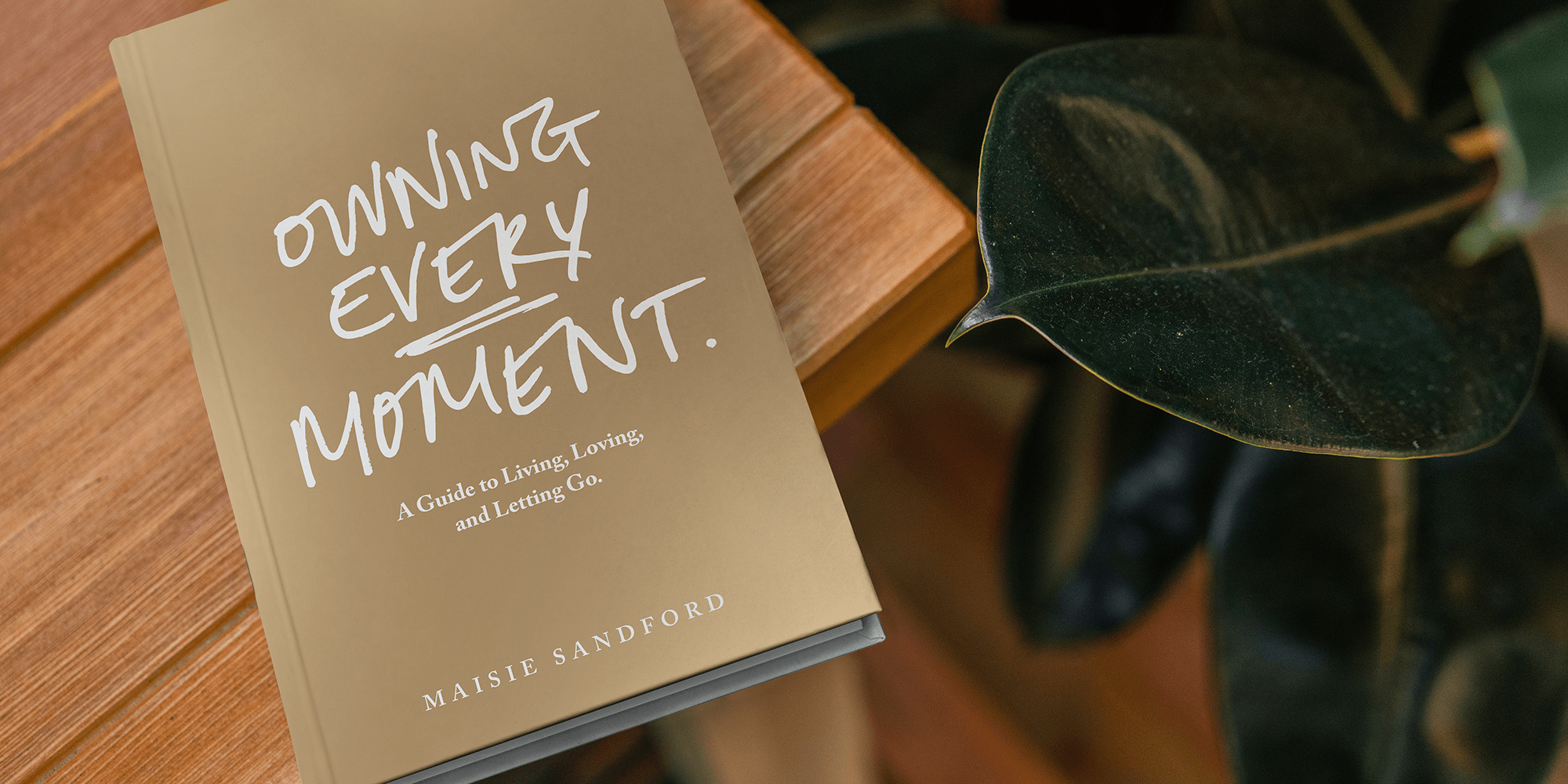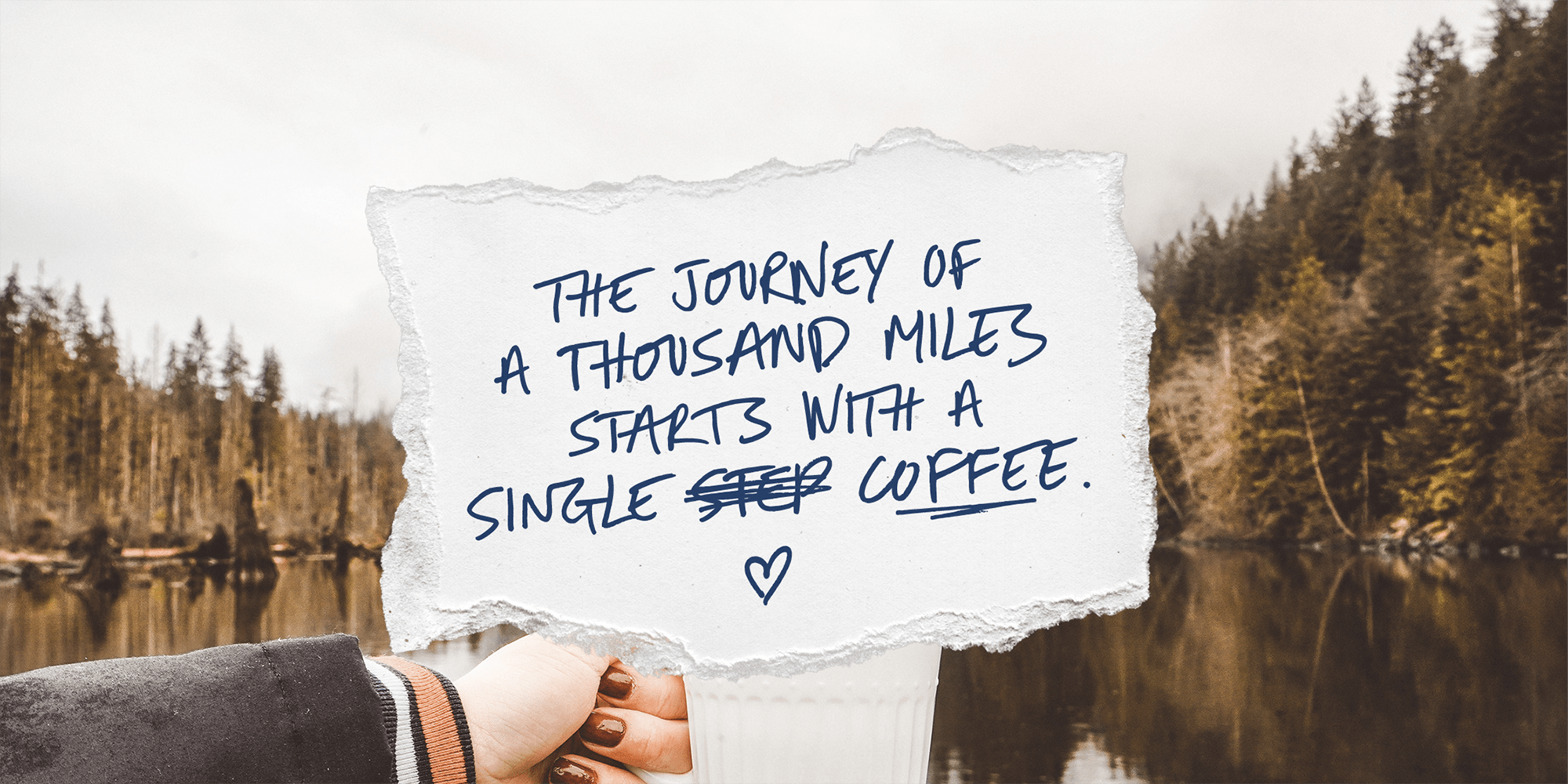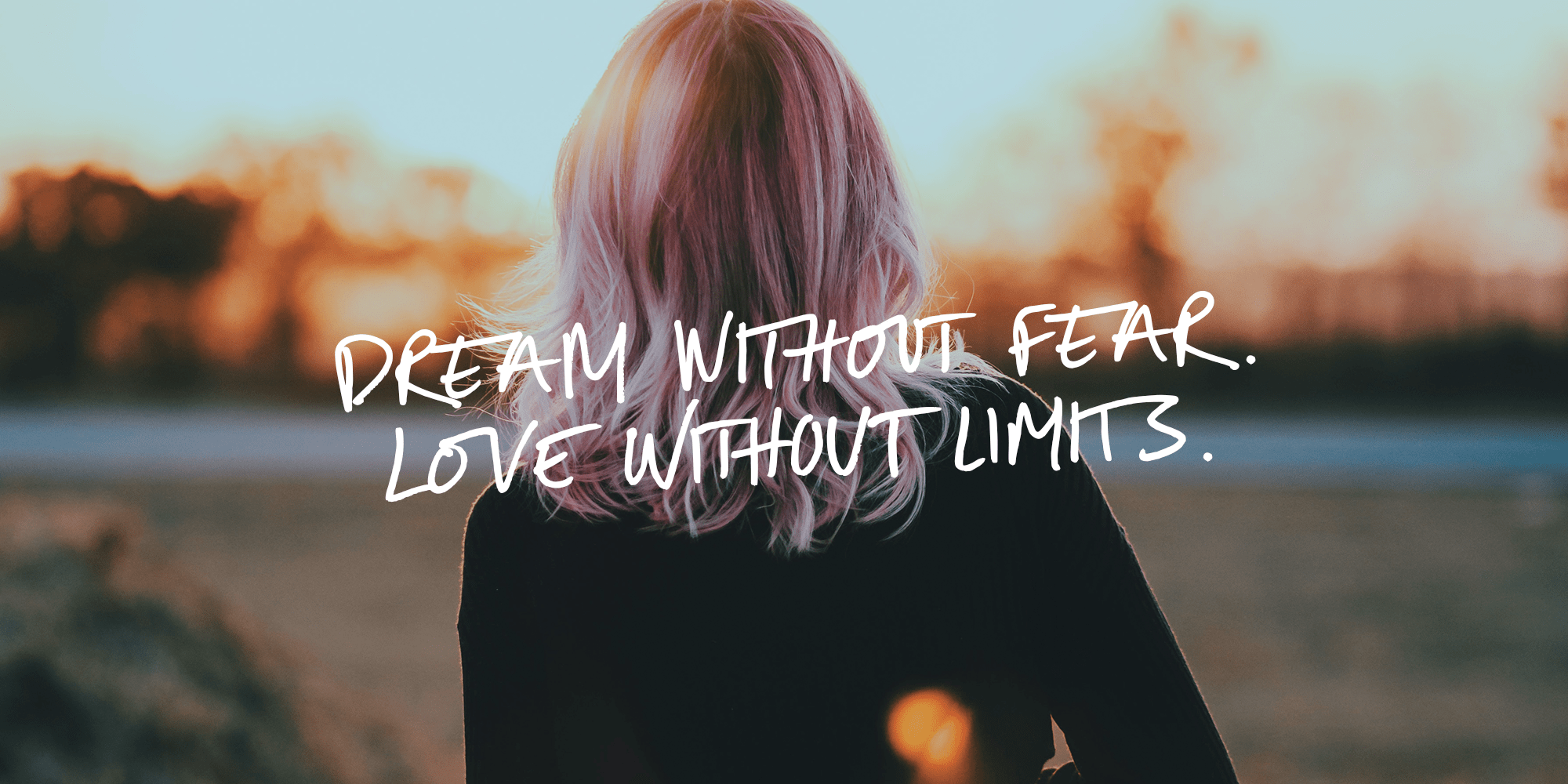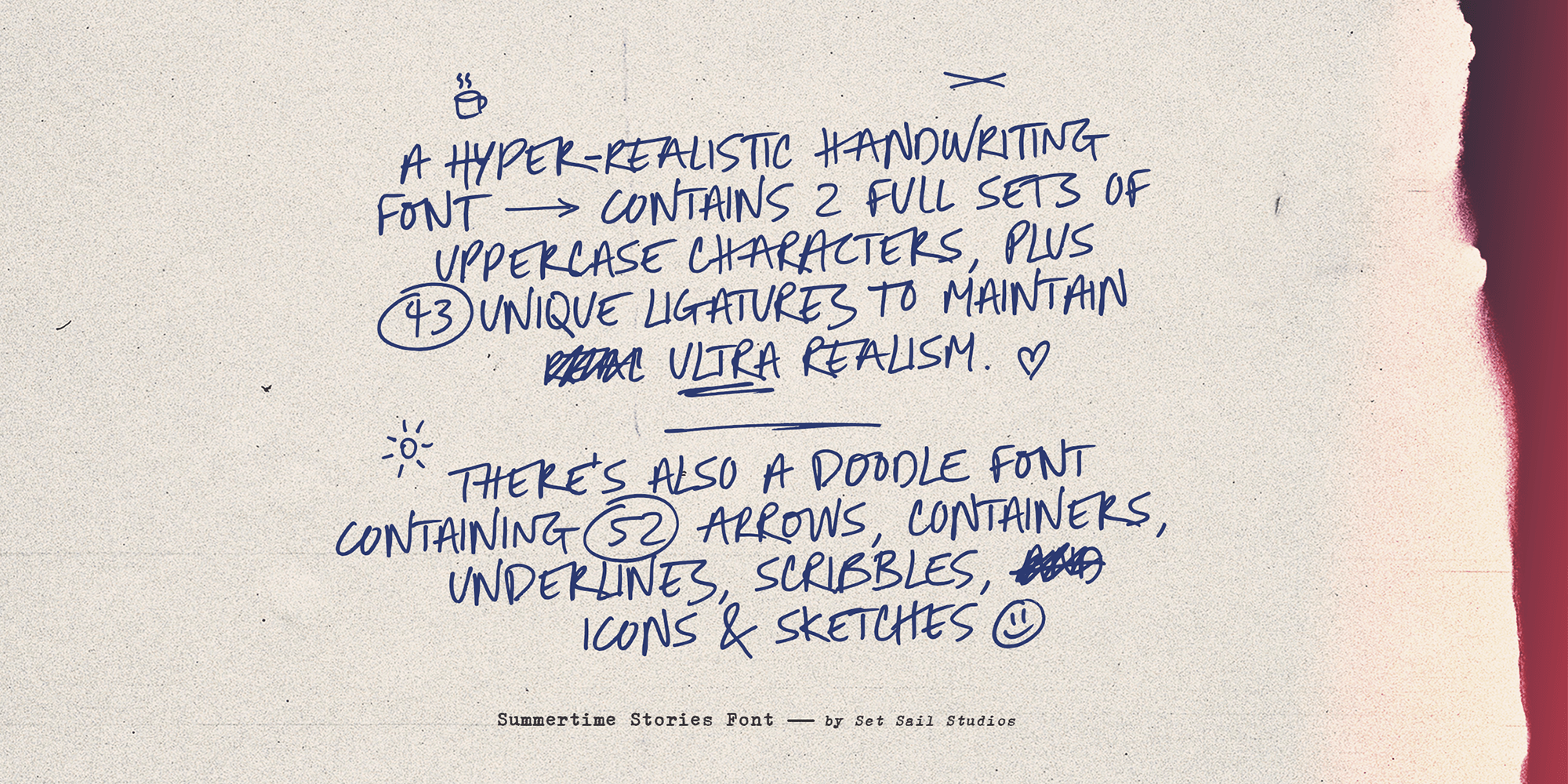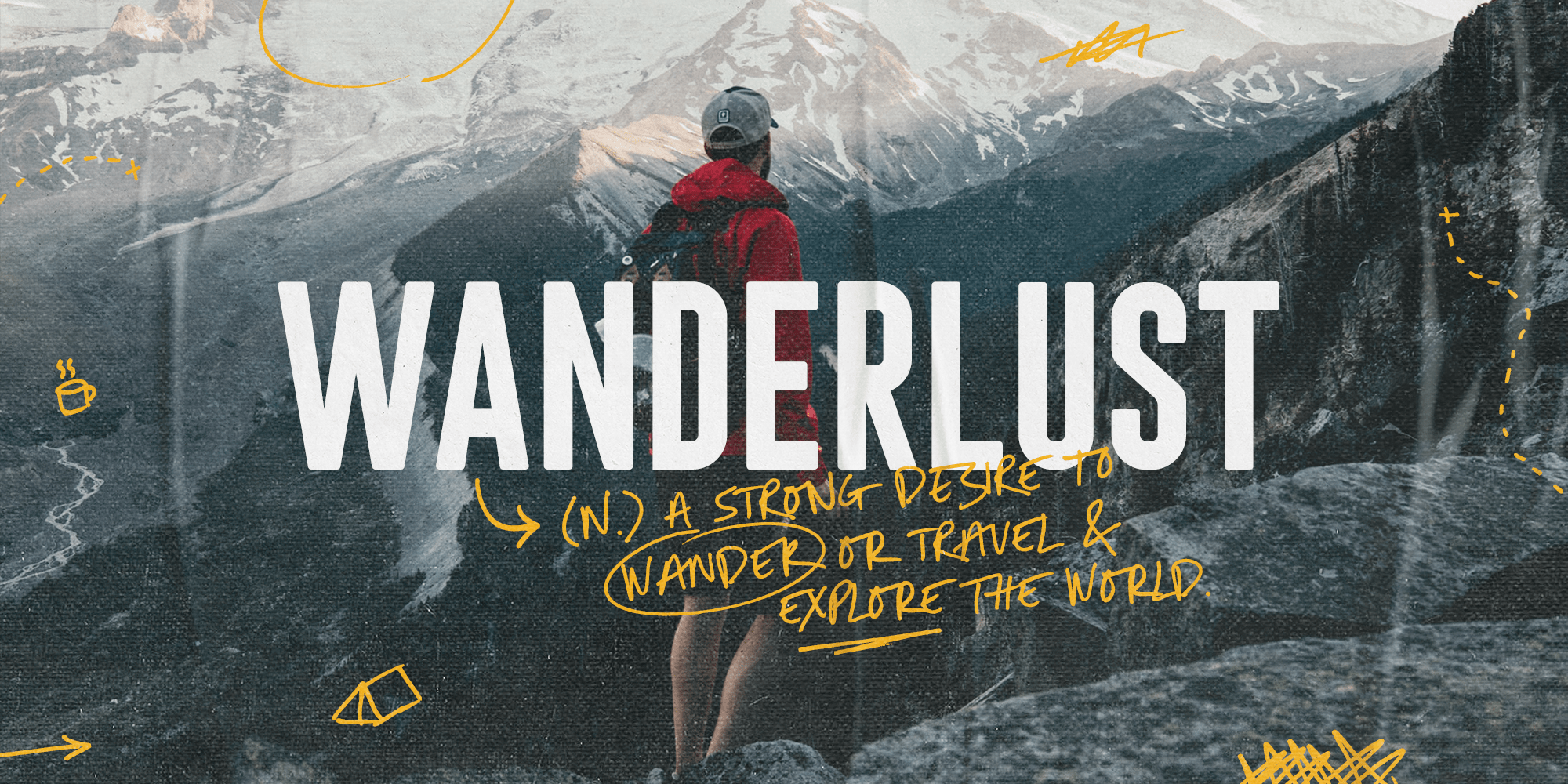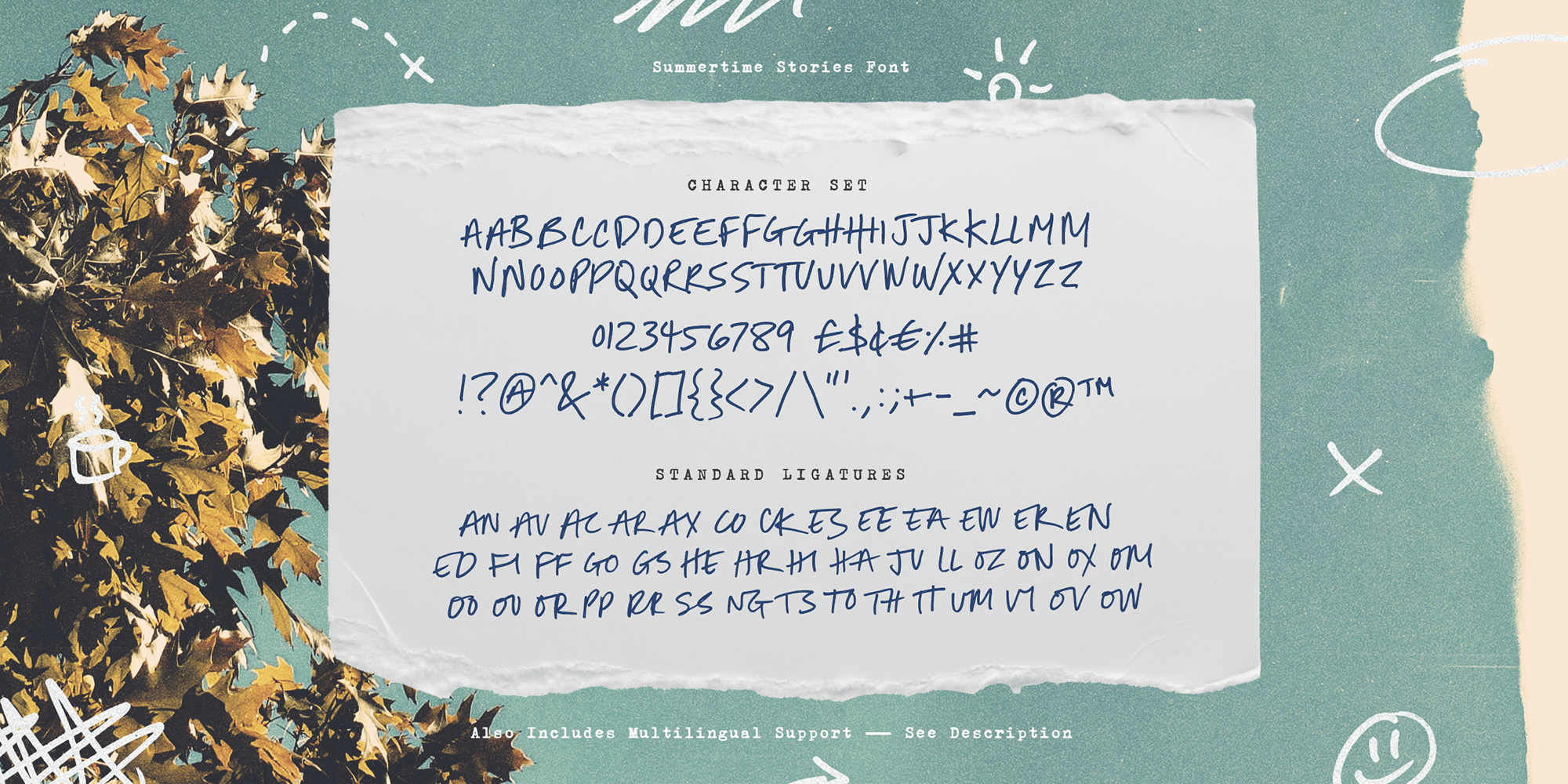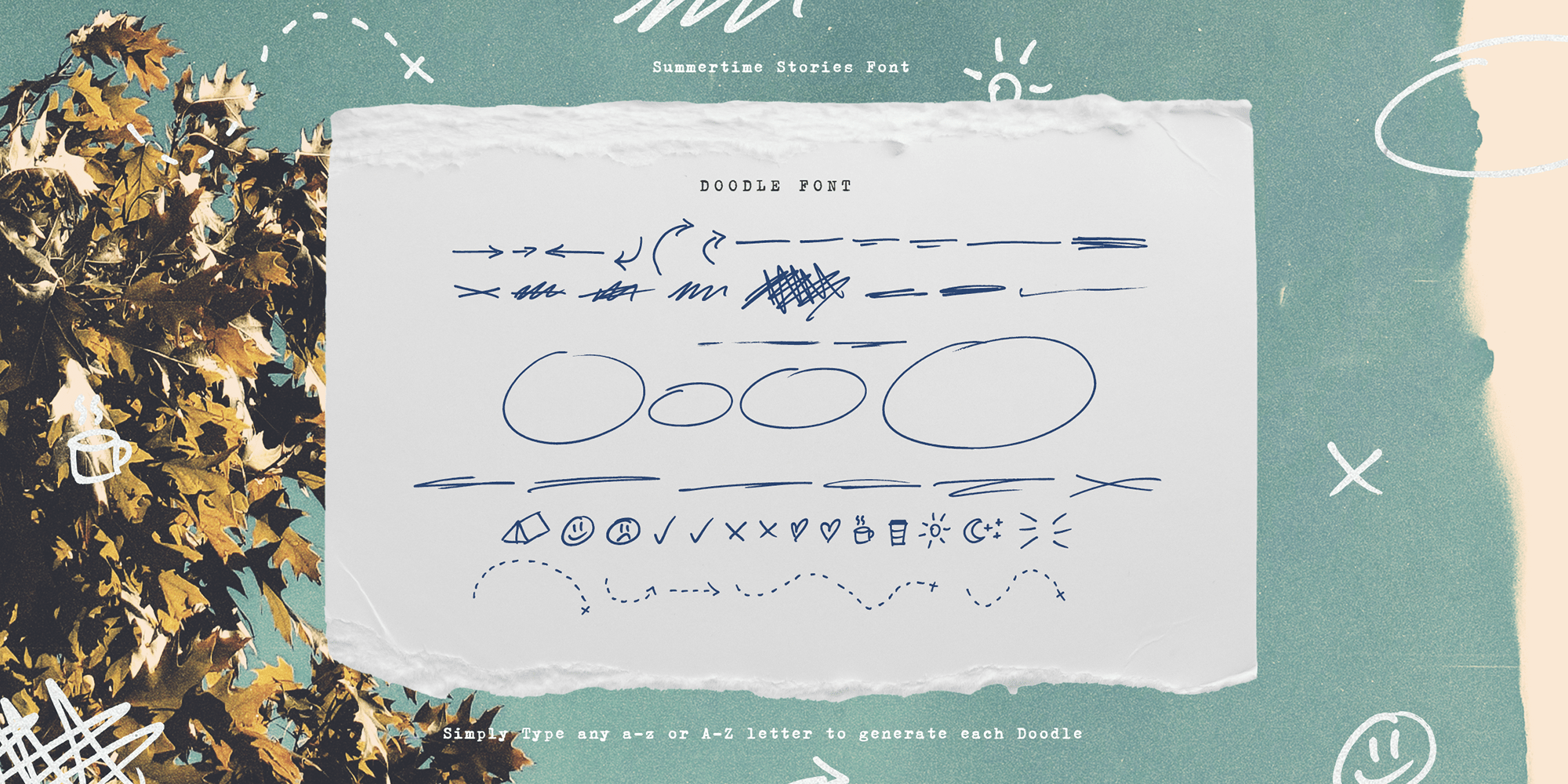
Summertime Stories
Font Family by Set Sail Studios
Create lasting memories with the Summertime Stories font, a charming uppercase script and doodle set. Crafted by hand with real pen on paper, Summertime Stories naturally replicates the fluidity and imperfections of messy handwriting. This achieved by providing an alternate set of each letter, along with 43 unique ligatures (double letter combinations), designed to create natural pen-stroke connections between handwritten letters.